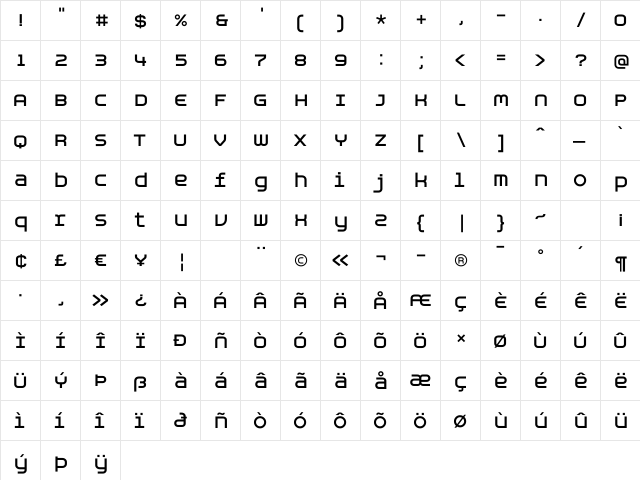
Aspirin AdvanceBold Regular
Design Context for Aspirin AdvanceBold Typeface
Aspirin AdvanceBold is a composed and adaptable typeface that performs quietly and consistently across a wide range of design contexts. The heavy weight commands attention and anchors typographic hierarchies.